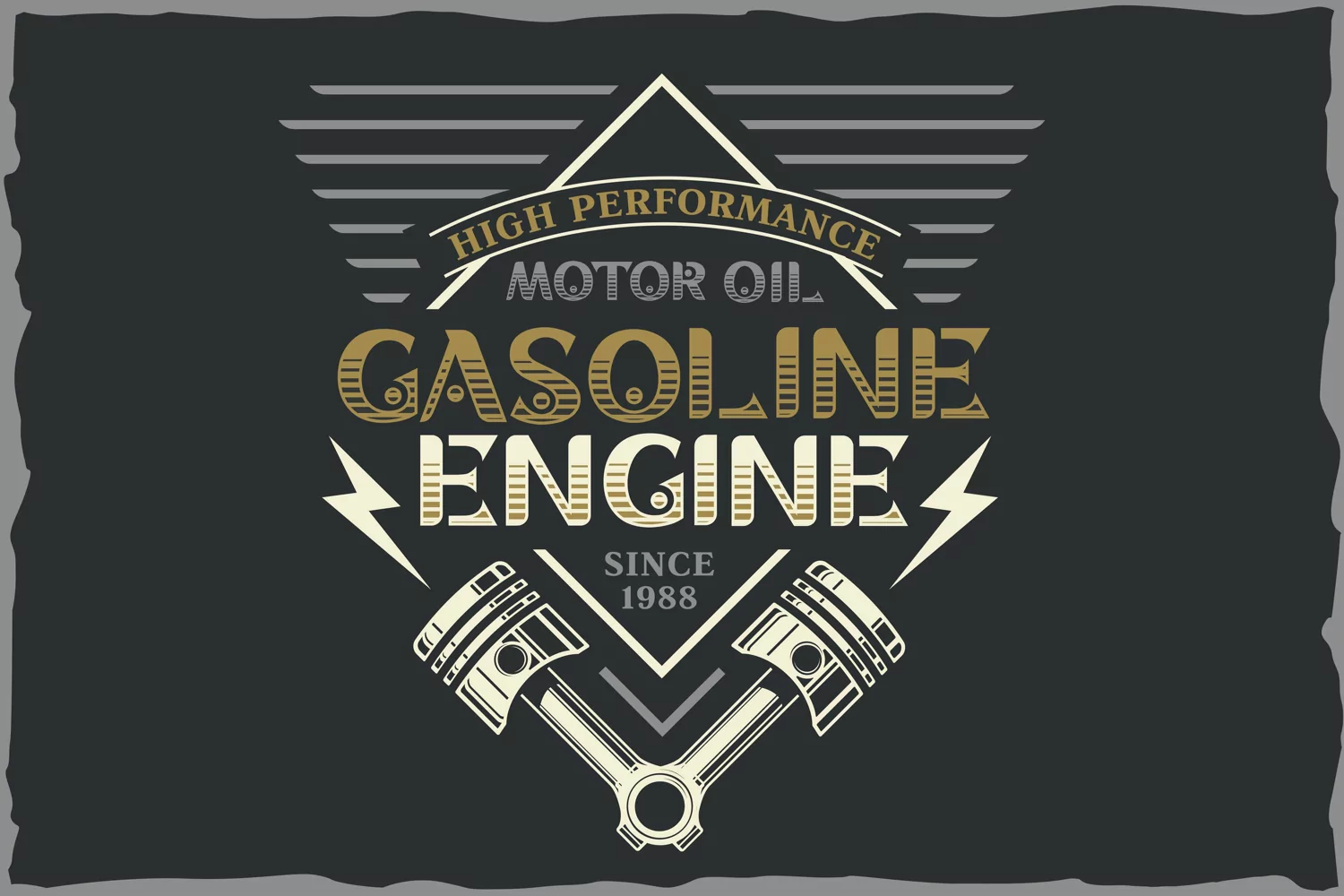
Japanese OTF vintage label font. Uppercase only!
Seignior, vintage font + bonus. Inside the archive:
Seignior
Seignior Inner line
Seignior Base
Seignior line decor